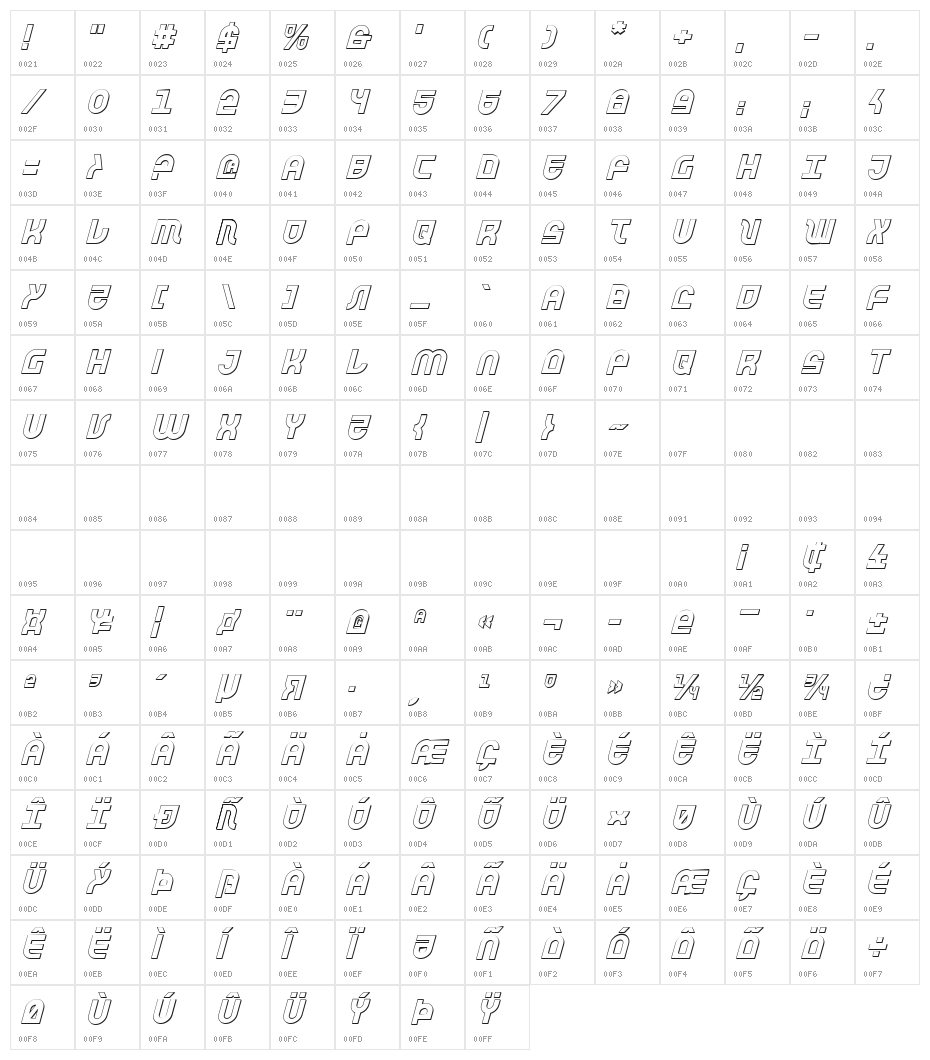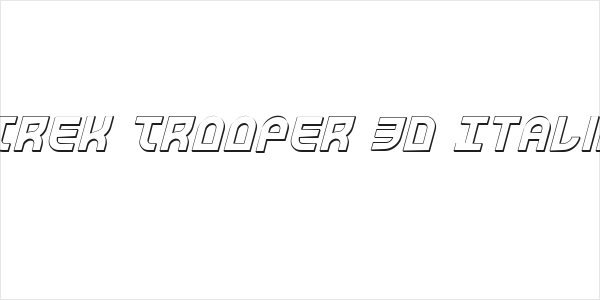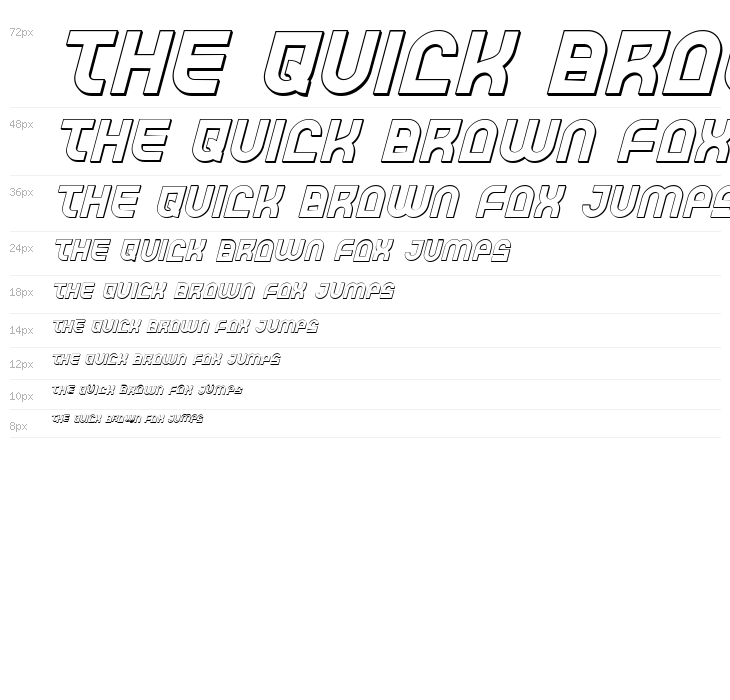
Trek Trooper 3D Italic Font
Trek Trooper 3D Italic Description
This font features a futuristic and dynamic 3D outline style with a strong italic slant, giving it a sense of motion and energy. The characters are bold and geometric, with sharp angles and clean lines that create a striking visual impact. The uppercase and lowercase letters maintain a consistent design, enhancing readability while adding a unique flair. The numbers and special characters follow the same stylistic approach, ensuring a cohesive look across all text elements. This font's distinct appearance makes it ideal for projects that require a modern and edgy aesthetic.
| Proposed Projects | Ideal for sci-fi themed designs, video game titles, movie posters, and branding that requires a modern, dynamic look. |